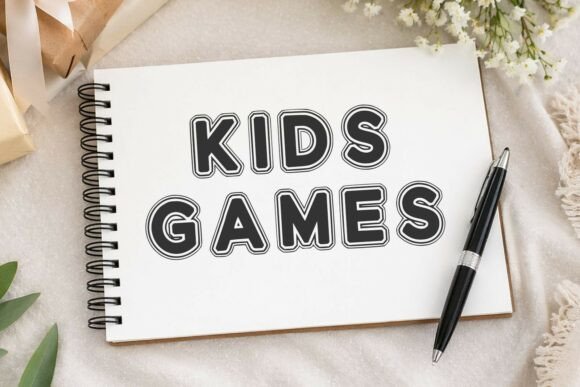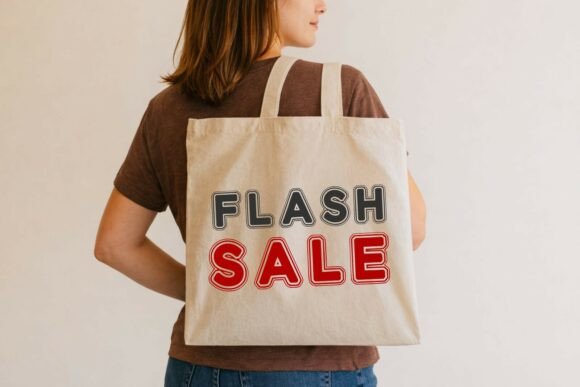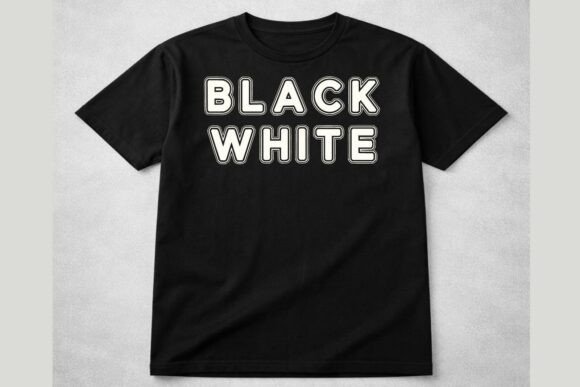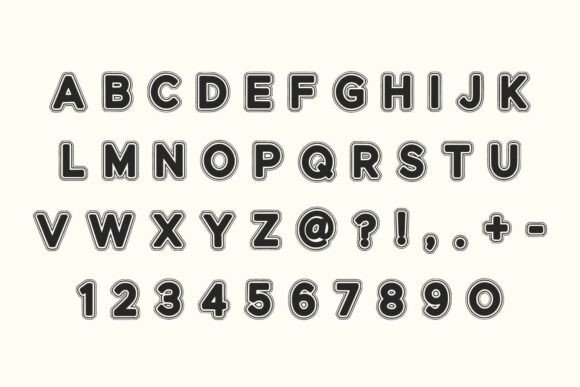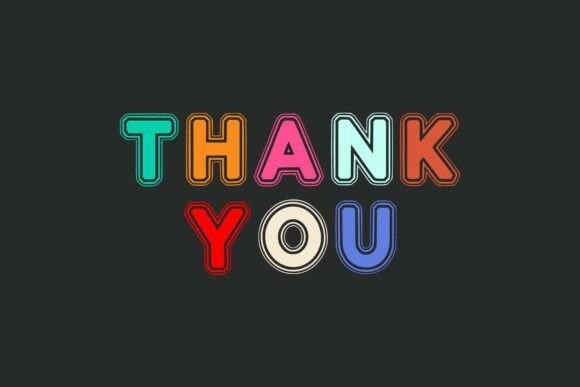
Cutt Sticker Font: A Playful and Colorful Typeface for Fun Designs
Are you looking for a font that can add a touch of playfulness and fun to your designs? Look no further than the Cutt Sticker Font! This adorable typeface is inspired by fun sticker designs and bold outline lettering, making it perfect for a wide range of creative projects. In this article, we’ll explore the features and benefits of the Cutt Sticker Font, and show you how to use it to take your designs to the next level.
What is Cutt Sticker Font?
The Cutt Sticker Font, also known as Cute Sticker Outline Display Font, is a unique and colorful typeface that is designed to bring a smile to your face. Its rounded shapes and double outline details give it a cheerful and vibrant style that is sure to make any design look friendly, eye-catching, and full of personality.
Key Features of Cutt Sticker Font
- Playful and Colorful: The Cutt Sticker Font is a playful and colorful typeface that is perfect for designs that require a fun and lively touch.
- Rounded Shapes: The font features rounded shapes that give it a soft and friendly look.
- Double Outline Details: The double outline details add a bold and eye-catching touch to the font.
- Versatile: The Cutt Sticker Font is versatile and can be used for a wide range of design projects, from kids’ projects to logos and branding.
Use Cases for Cutt Sticker Font
The Cutt Sticker Font is perfect for a variety of design projects, including:
- Kids’ Projects: The font is perfect for kids’ projects, such as posters, stickers, and activity sheets.
- Stickers and Labels: The font’s playful and colorful style makes it perfect for stickers and labels.
- Posters and Flyers: The font’s bold and eye-catching style makes it perfect for posters and flyers.
- Logos and Branding: The font’s unique and playful style makes it perfect for logos and branding.
- T-Shirt Designs: The font’s fun and playful style makes it perfect for t-shirt designs.
- Social Media Graphics: The font’s colorful and eye-catching style makes it perfect for social media graphics.
Benefits of Using Cutt Sticker Font
There are many benefits to using the Cutt Sticker Font in your designs. Some of the benefits include:
- Unique and Playful Style: The font’s unique and playful style will help your designs stand out from the crowd.
- Easy to Read: The font is easy to read, even at small sizes.
- Versatile: The font is versatile and can be used for a wide range of design projects.
- Time-Saving: The font’s playful and colorful style can save you time and effort in your design process.
Tips for Using Cutt Sticker Font
Here are some tips for using the Cutt Sticker Font in your designs:
- Use Bright Colors: The font’s playful and colorful style is perfect for bright and bold colors.
- Experiment with Different Sizes: The font’s versatility means it can be used at a variety of sizes, from small to large.
- Pair with Other Fonts: The font can be paired with other fonts to create a unique and interesting look.
- Use for Headlines and Titles: The font’s bold and eye-catching style makes it perfect for headlines and titles.
The Cutt Sticker Font is a playful and colorful typeface that is perfect for a wide range of design projects. Its unique and playful style, combined with its versatility and ease of use, make it a great addition to any designer’s toolkit. Whether you’re working on a kids’ project, a logo, or a social media graphic, the Cutt Sticker Font is sure to bring a smile to your face and a touch of fun to your design.